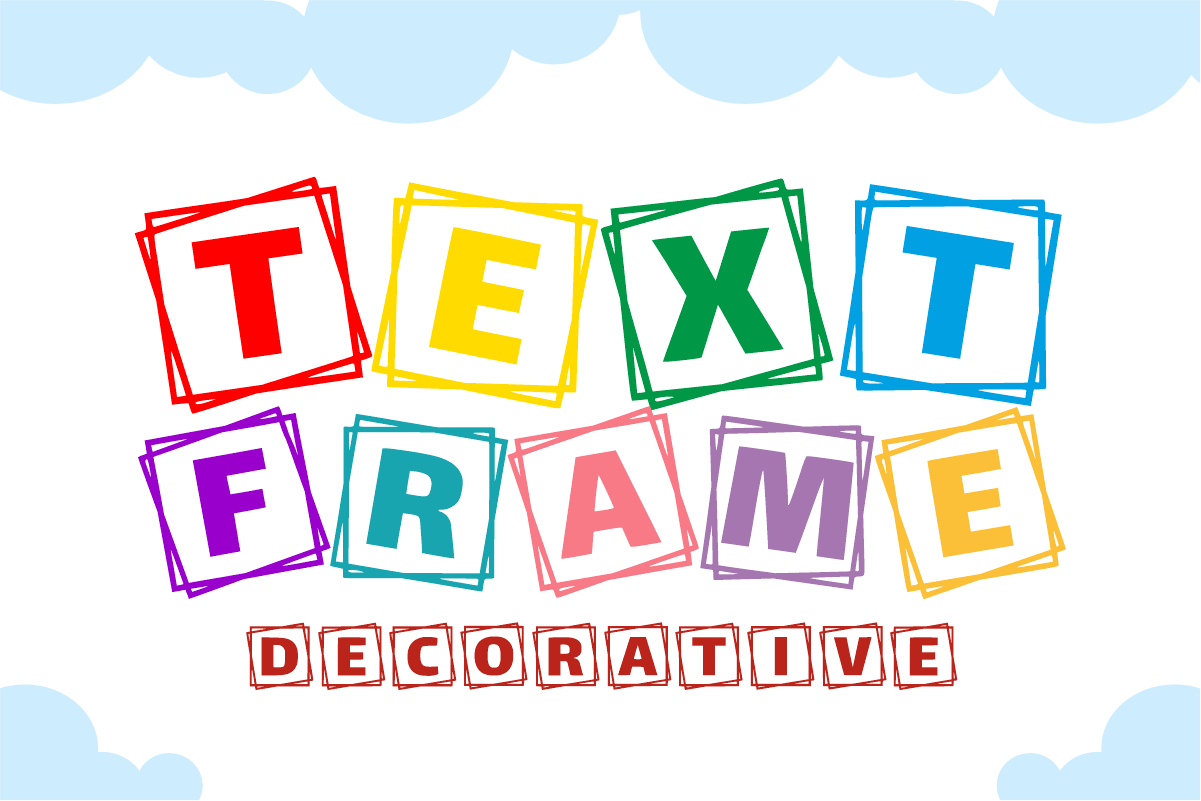
Text Frame - Playful Block Font
Text Frame is a whimsical decorative display font featuring bold uppercase letters nestled inside stacked, sketchy square frames. Inspired by playful school blocks and creative doodles, this unique font instantly adds an interactive, energetic vibe to headers and logos. Every character is cleanly vectorized to guarantee smooth, effortless cutting on machines like Cricut and Silhouette.
Ideal For:
Classroom posters, bulletin boards, and teacher resources
Custom die-cut stickers, labels, and planner decals
Kids' apparel, t-shirt prints, and custom tote bags
Creative scrapbooking and DIY paper crafts
Birthday party invitations, tags, and banners
Cricut and Silhouette vinyl crafting projects